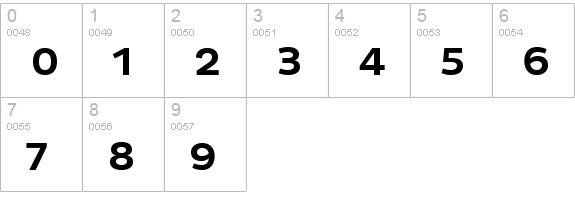
Pluto Medium is a balanced, medium-weight variant in the Pluto typeface family \xE2\x80\x94 well suited to sub-headlines, navigation, and balanced editorial work.
Pluto Medium font is a versatile and modern typeface that exudes elegance and sophistication. Its clean lines and balanced proportions make it perfect for a wide range of design projects, from branding to editorial layouts. The medium weight of Pluto Medium strikes the perfect balance between readability and style, making it suitable for both headlines and body text. The best part about Pluto Medium font? It's completely free! You can easily download it at FontsMarket.com and start using it in your projects right away. With its timeless design and professional appeal, Pluto Medium font is sure to elevate your designs to the next level. Don't miss out on this fantastic opportunity to enhance your typography collection with this high-quality font, available for free at FontsMarket.com.